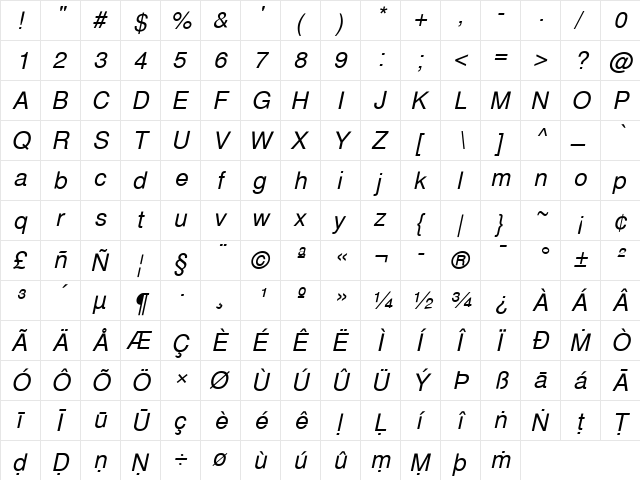
Pali Helvetica Regular
Design Context for Pali Helvetica Typeface
Pali Helvetica is a composed and adaptable typeface that performs quietly and consistently across a wide range of design contexts.
Pro Tip: Use Pali Helvetica in both headline and body roles to test its range before committing to a single application.